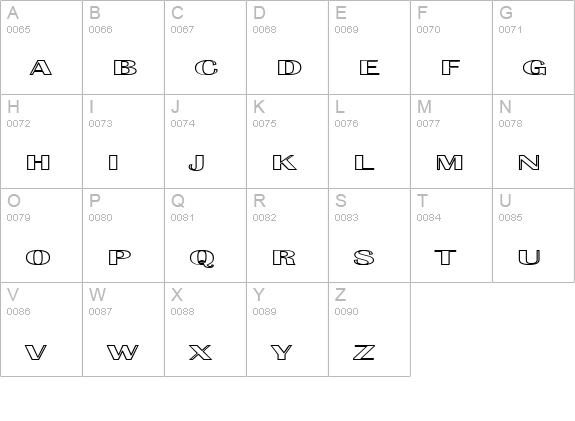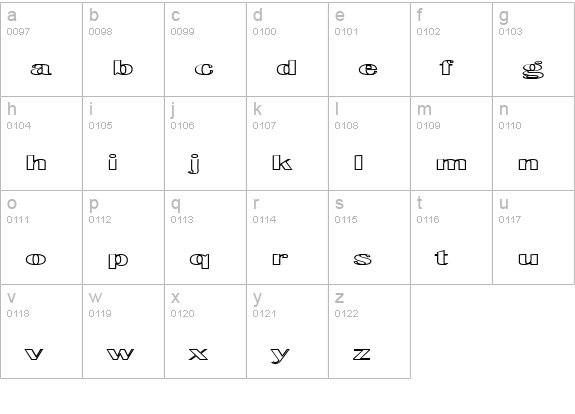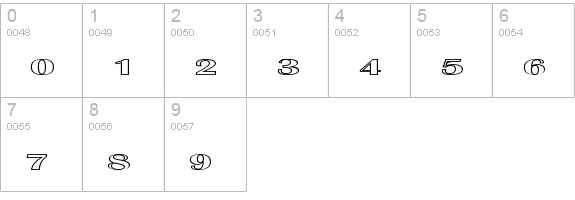
Effluence Outlined Font Details
Effluence Outlined font is a captivating and versatile typeface that exudes elegance and modernity. Its clean lines and delicate curves make it a perfect choice for a wide range of design projects, from logos and branding to headlines and posters. This font boasts a unique combination of sophistication and simplicity, making it suitable for both professional and creative applications. Whether you're designing for a high-end fashion brand, a tech startup, or a trendy cafe, Effluence Outlined font will effortlessly elevate your design and make a lasting impression. With its sleek and stylish appearance, Effluence Outlined font is sure to catch the eye and add a touch of sophistication to any project. Its carefully crafted outlines give it a contemporary feel, while its generous spacing ensures optimal legibility in both print and digital formats. One of the best things about Effluence Outlined font is that it is freely available to download at FontsMarket.com. This means that you can start using this stunning typeface in your designs without having to worry about any licensing fees or restrictions. It's the perfect solution for designers who want to add a touch of elegance to their projects while staying within budget. So why wait? Download Effluence Outlined font today and let its beauty and versatility inspire your next design masterpiece. With its free availability and endless design possibilities, this font is a must-have for every designer's toolkit.